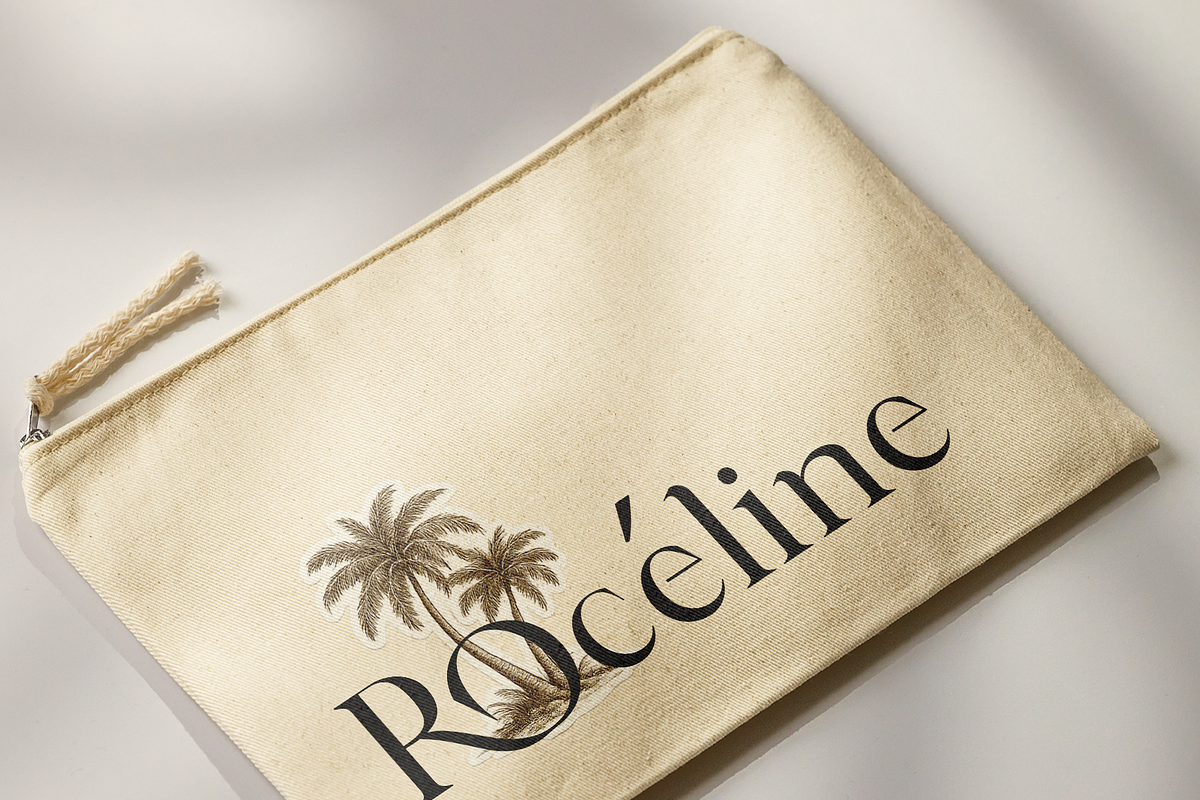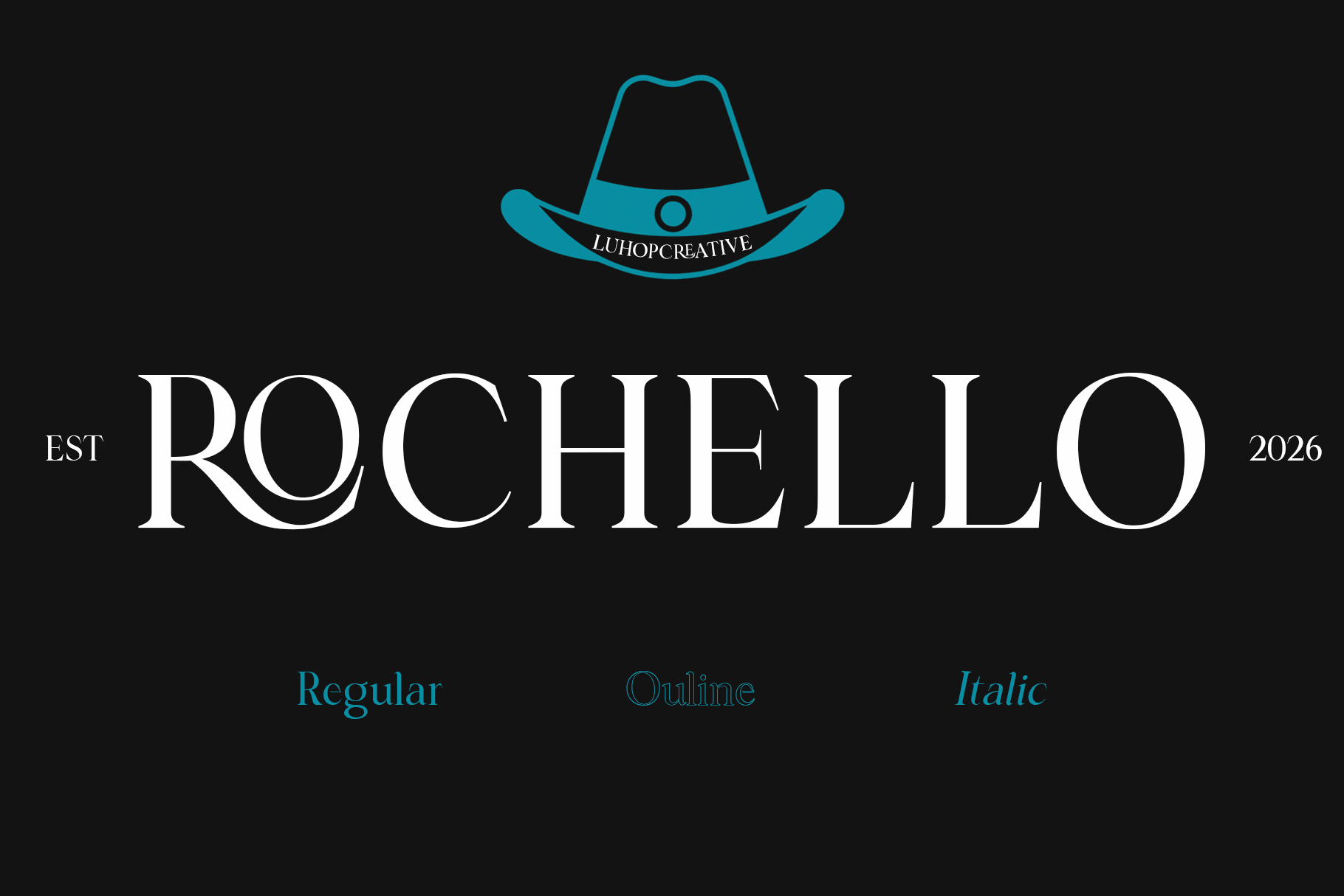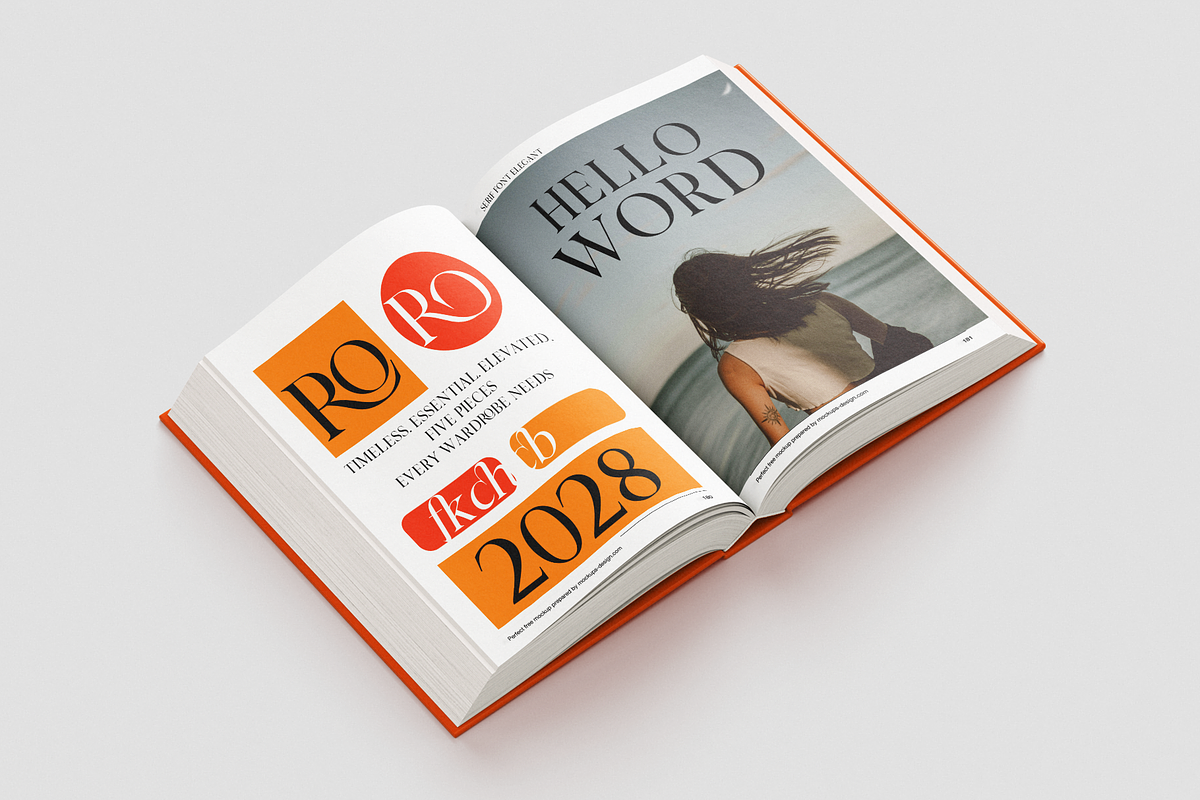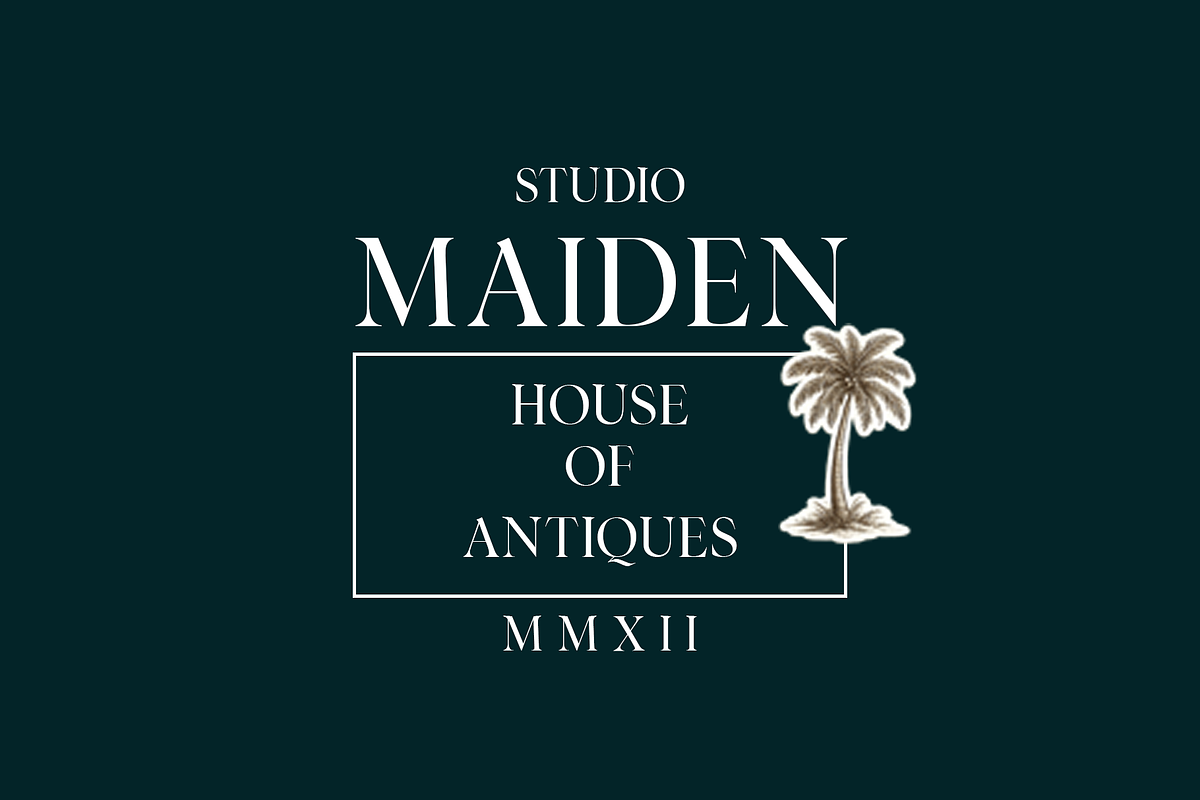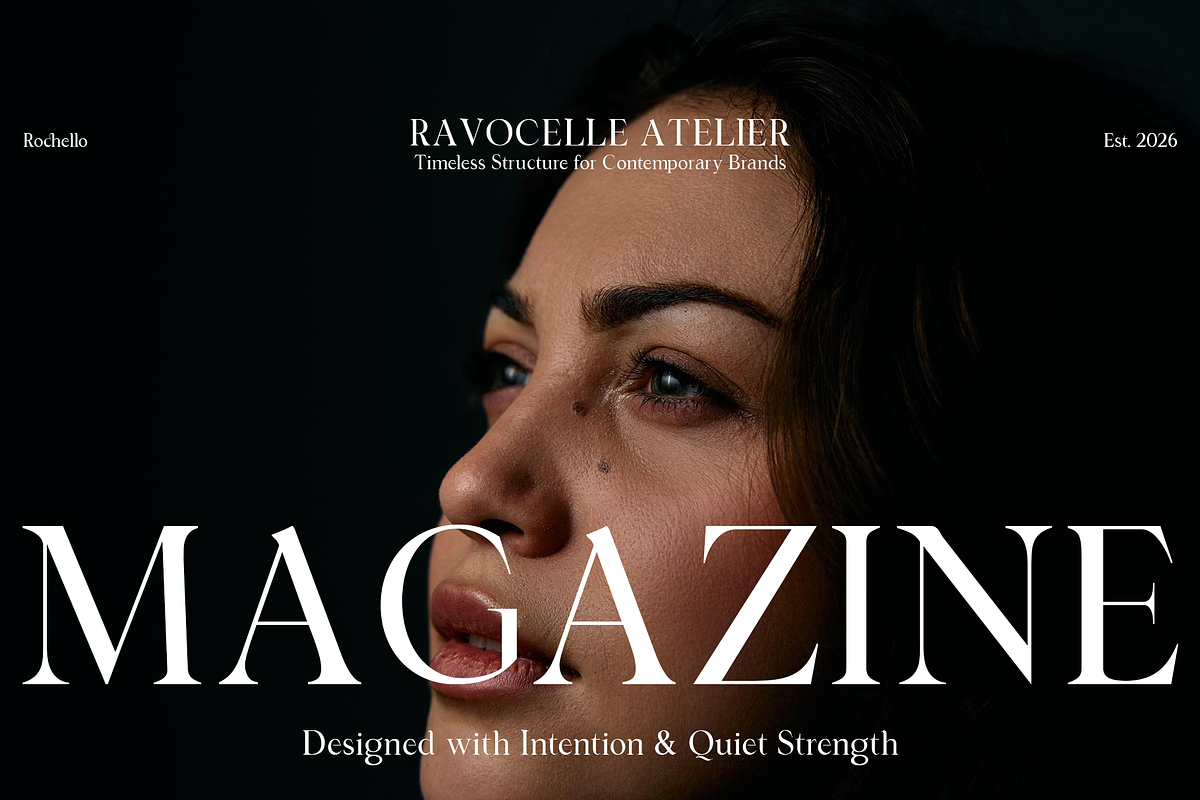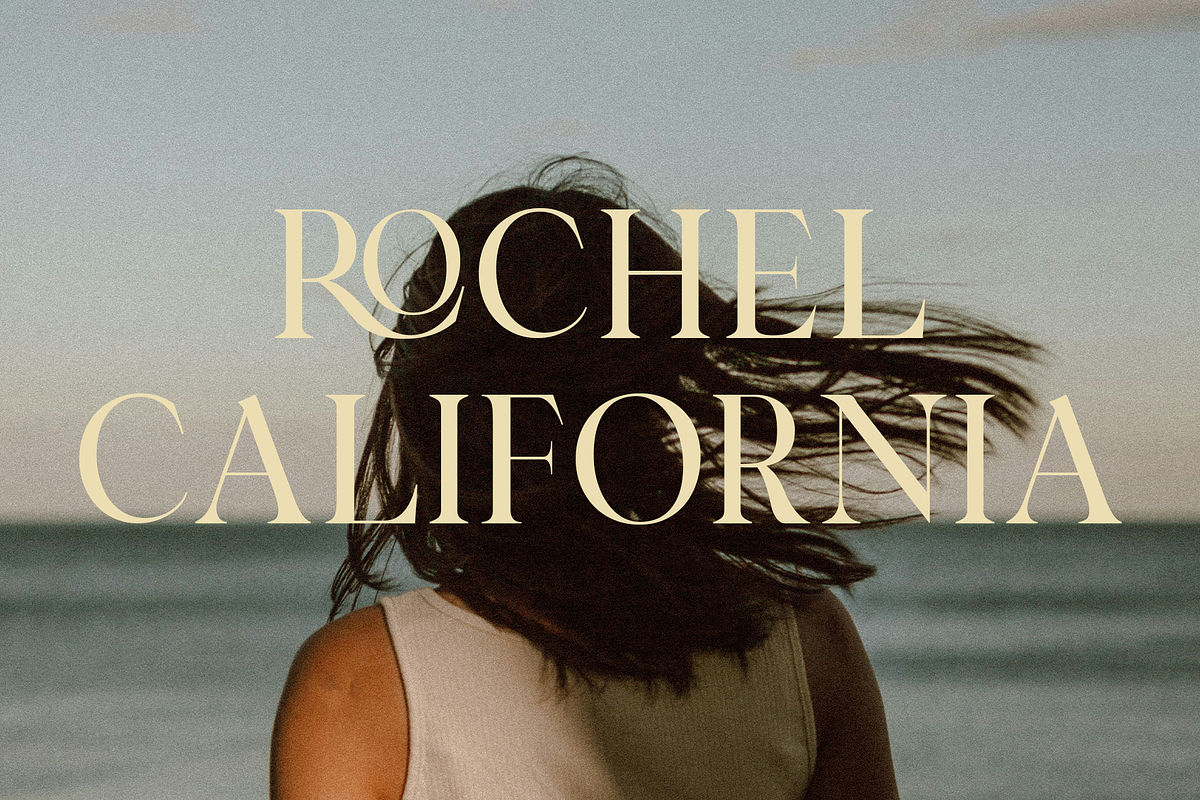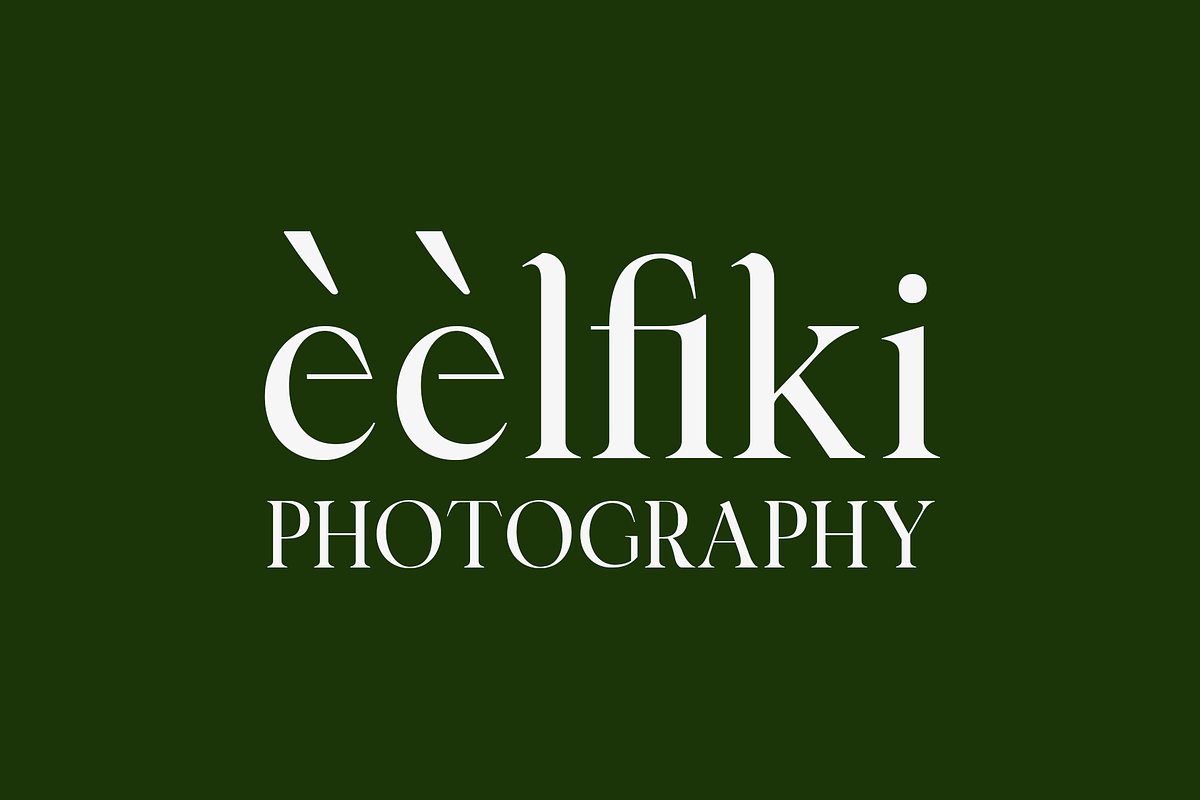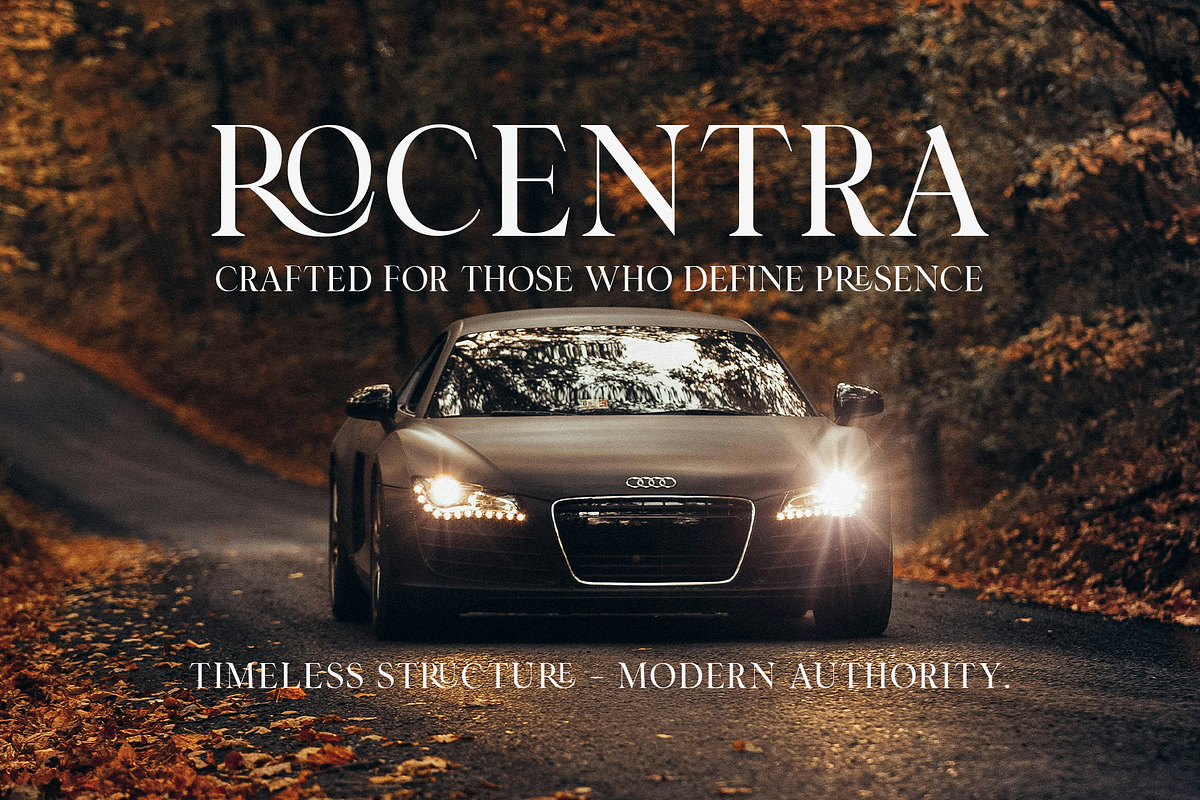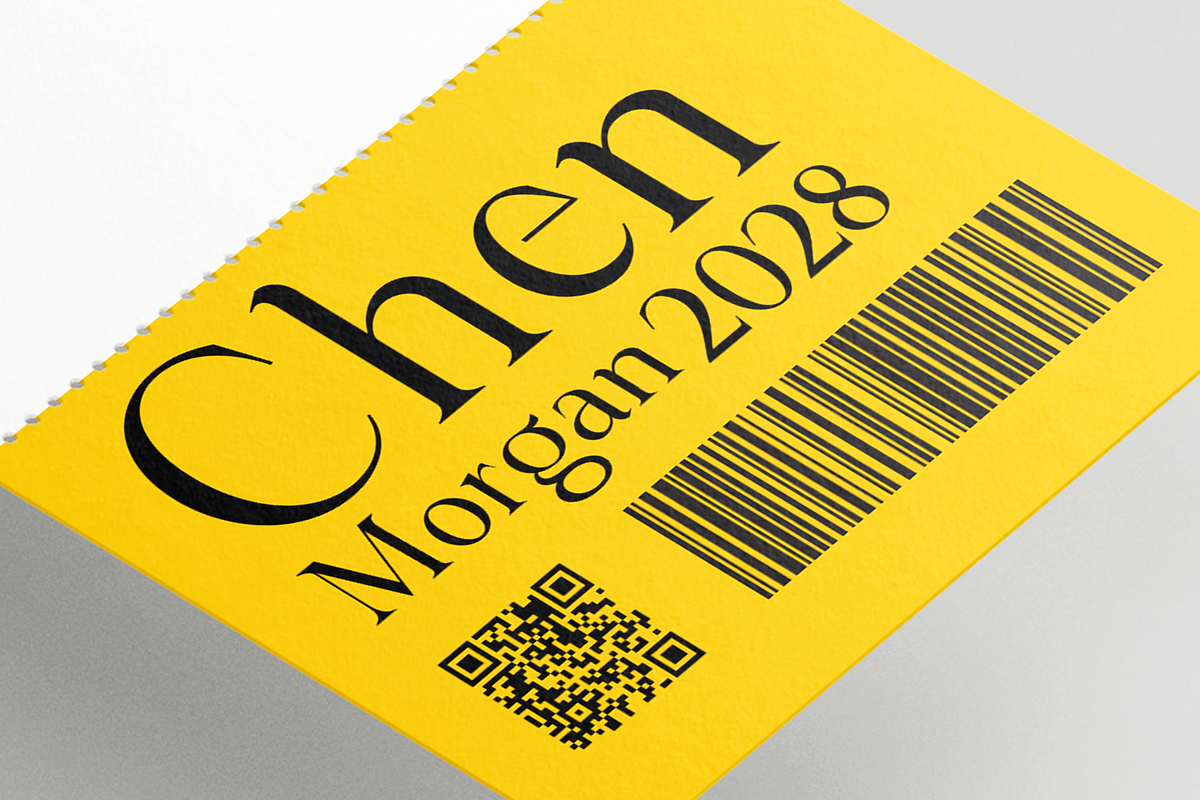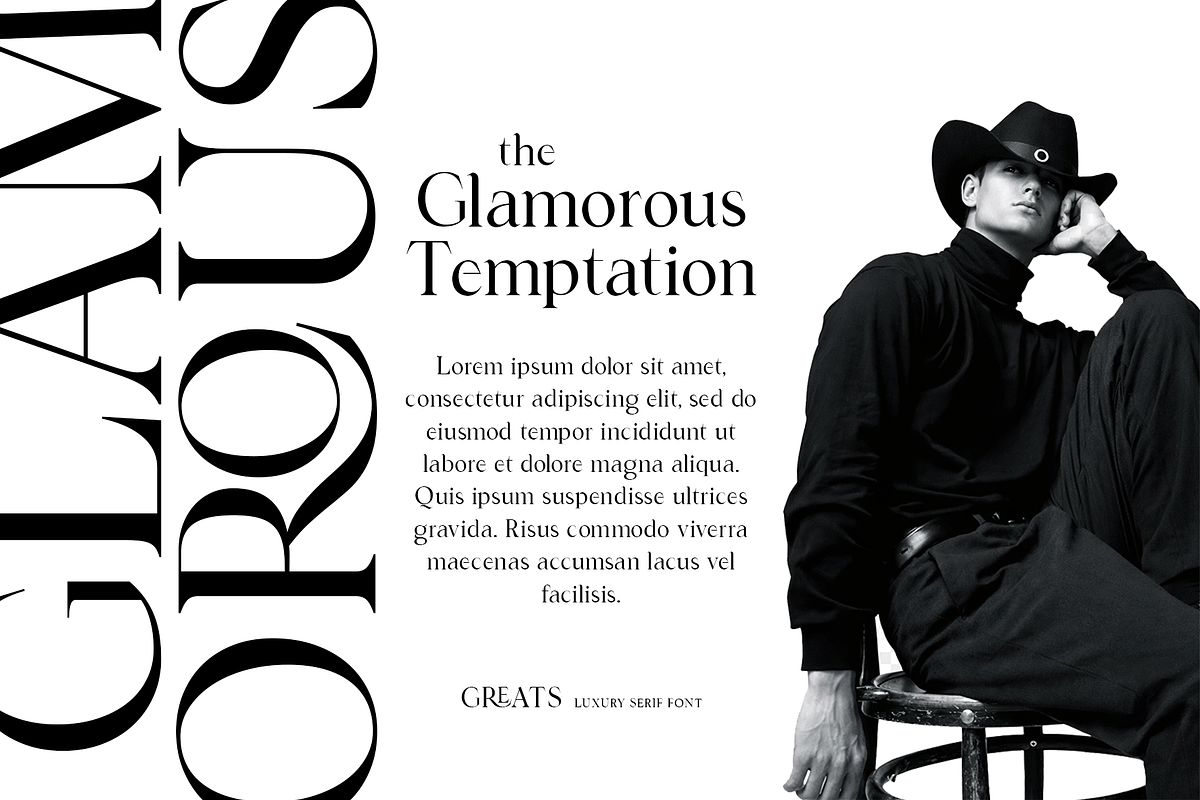
Rochello – Luxury Modern Serif Font
Rochello – Luxury Modern Serif Font for Elegant Branding, Logos & Editorial Design
Rochello is a luxury modern serif font crafted for designers who want to create elegant, high-end, and sophisticated branding. This high contrast serif typeface combines timeless classic structure with a contemporary fashion aesthetic, making it ideal for logo design, editorial layouts, beauty packaging, wedding invitations, and premium brand identities.
Designed with sharp refined serifs, smooth curves, and dramatic thick-to-thin stroke contrast, Rochello delivers a confident and upscale visual presence. Every letterform is carefully balanced to create harmony between elegance and boldness — giving your designs a professional and luxurious finish.
Whether you are building a fashion brand, cosmetic label, jewelry logo, boutique identity, or magazine headline, Rochello provides the versatility and sophistication needed to stand out in competitive markets.
Rochello works beautifully in large display settings such as headlines and logos, while maintaining refined detail and readability. The elegant serif structure adds timeless appeal, while the modern proportions ensure relevance in contemporary design trends.
– High contrast serif style – Elegant and refined letterforms – Modern fashion-inspired aesthetic – Clean spacing for professional layouts – Suitable for branding and editorial use
Rochello is more than a typeface — it’s a statement of sophistication.